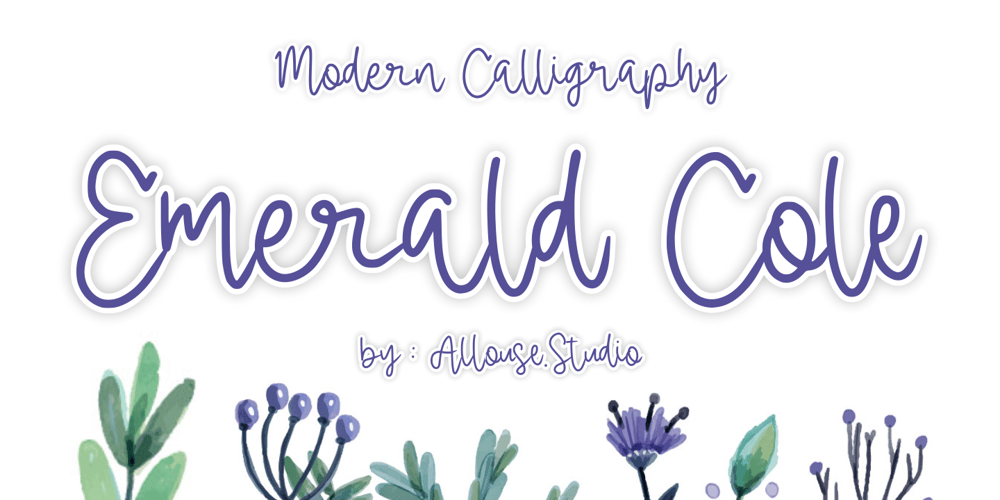
Emerald Cole Font Family was designed by Fachrizal Yusuf and published by Allouse Studio. Emerald Cole contains 1 styles and family package options. Proudly Presenting, Emerald Cole a Modern Calligraphy Font.Emerald Cole is perfect for any tittle, product packaging, branding project, megazine, social media, wedding, or just used to express words above the background.Emerald Cole also come along with Multilingual-Support to fulfill your need.We highly recommend using a program that supports OpenType features and Glyphs panels like many of Adobe apps and Corel Draw, so you can see and access all Glyph variations.Enjoy the font, feel free to comment or feedback, send me PM or email.